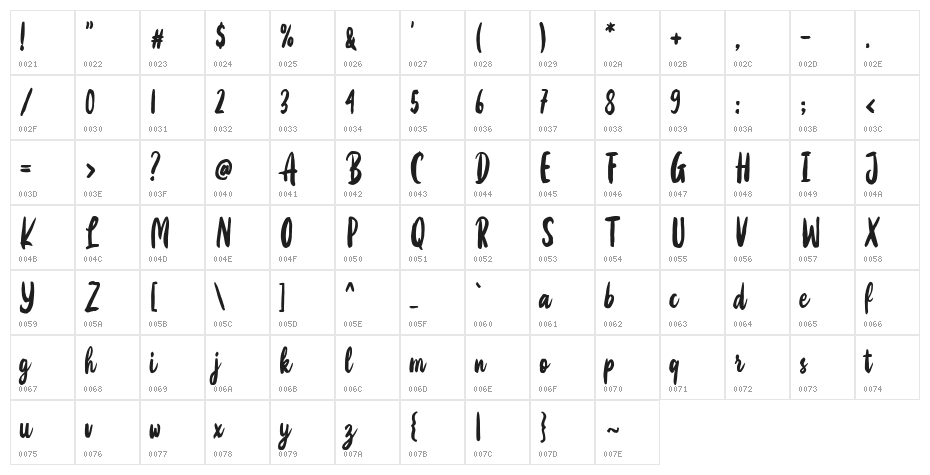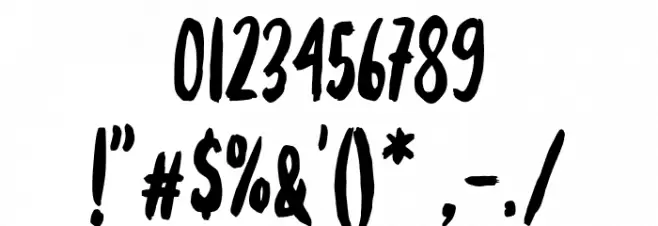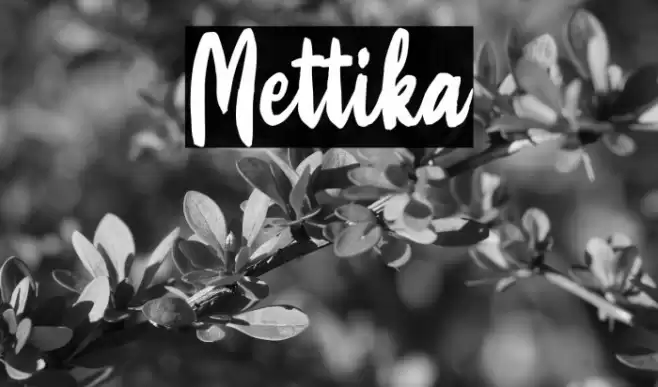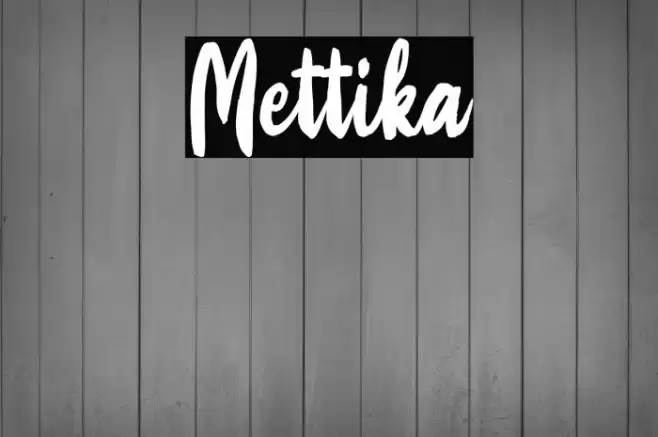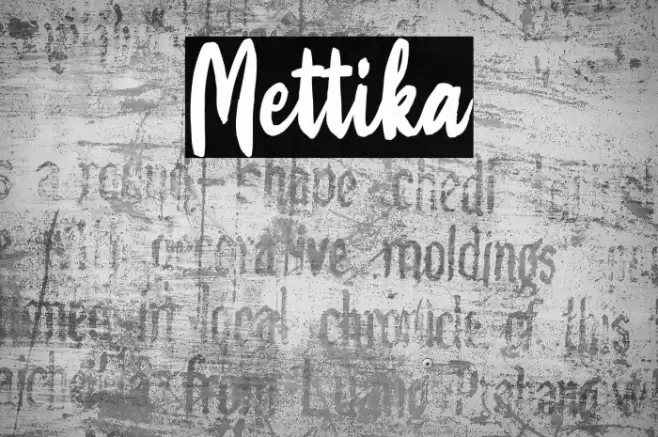
Mettika Font
Mettika Description
This font exhibits a bold and expressive handwritten style, characterized by its dynamic and fluid strokes. The uppercase letters are tall and slightly condensed, giving a sense of energy and movement. The lowercase letters maintain a consistent flow, with a playful and casual appearance. The numbers are bold and easily legible, matching the overall aesthetic. Special characters are creatively designed, adding to the font's unique personality. This font is suitable for projects that require a personal touch and a sense of creativity.
METTIKA UPPERCASE
METTIKA LOWERCASE
METTIKA OTHER CHARS
| Proposed Projects | Ideal for greeting cards, posters, branding, and social media graphics. |